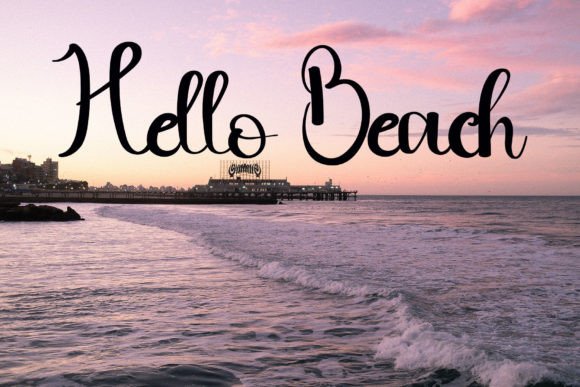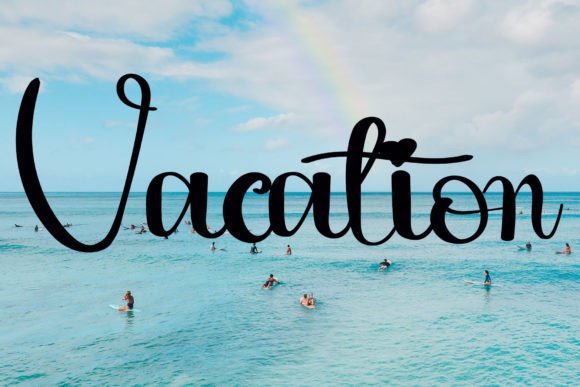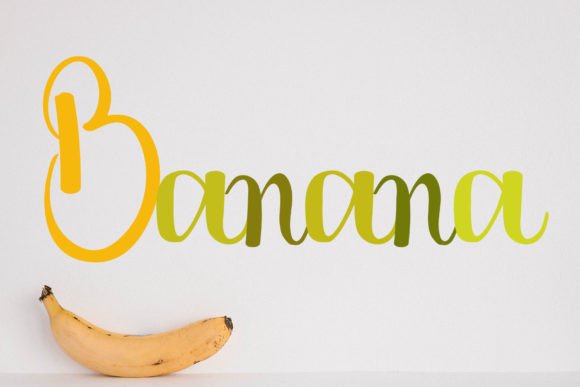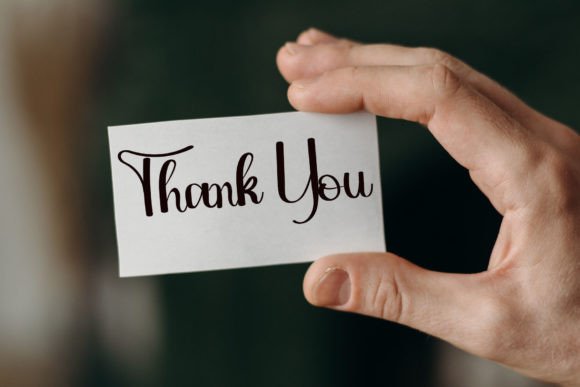
Wonderful Font
About Wonderful Font
Wonderful is a font that gracefully combines delicacy, elegance, and fluidity in its handwritten style. With beautiful and well-balanced characters, it becomes a versatile choice that seamlessly complements a wide array of designs. This font adds a touch of sophistication to your creative projects, breathing life into your most imaginative ideas.
The delicacy of Wonderful is reflected in its gentle strokes, creating an overall visual appeal that is both refined and pleasing to the eye. Its elegant demeanor makes it suitable for various applications, bringing a sense of style to your designs.
Whether you’re working on invitations, branding materials, editorial layouts, or any other creative endeavor, Wonderful adapts effortlessly, enhancing the overall aesthetic. It becomes more than just a typeface; it’s a design element that adds a layer of beauty and charm to your projects.
Wonderful’s flowing handwritten style brings a sense of fluidity to the text, making it a delightful choice for conveying messages with grace. Its versatility shines through in how it effortlessly integrates into different design contexts, elevating the visual impact of your creations.
Add Wonderful to your most creative ideas, and observe how it breathes life into them. This font becomes a key element that enhances the elegance and appeal of your designs, making them stand out with a touch of sophistication. Let Wonderful be the choice that adds a wonderful touch to your creative endeavors.